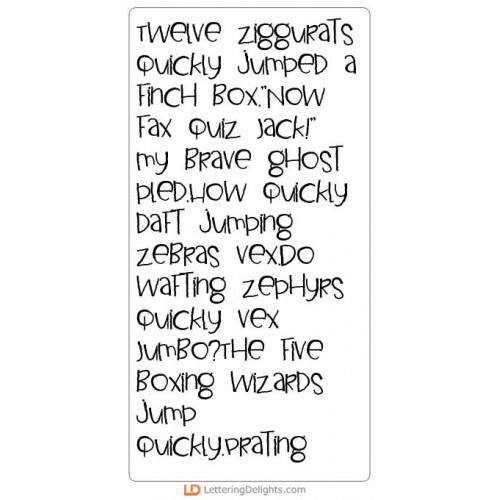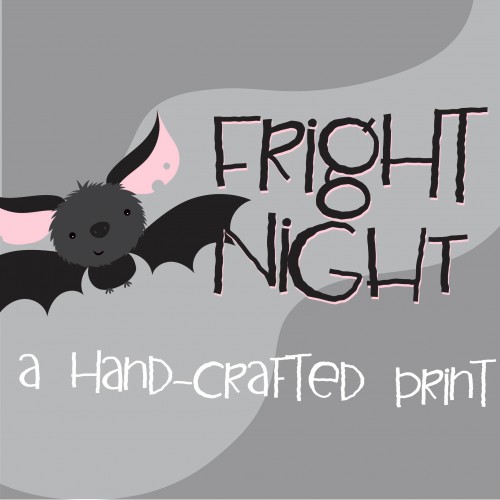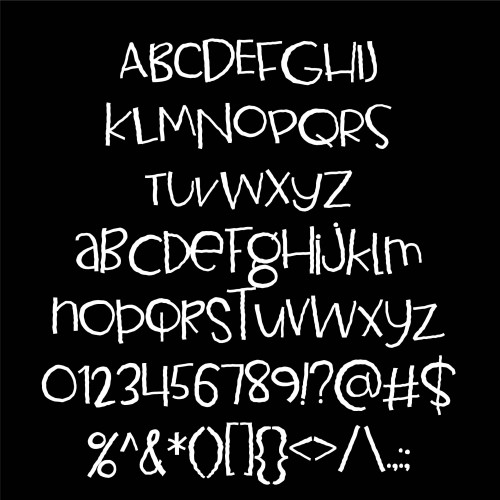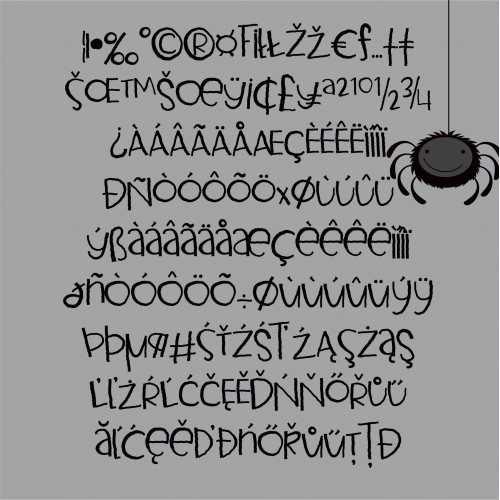
Friday the 13th Font Bundle
This scary font bundle is made up of 13 new scary fonts that are perfect for your Halloween projects.
PN Fright Night - FN
This youthful font is cute and just a bit scary...
ZP Wolfgang - FN
This is a great script that can add an aire of scary or formal to any project...
PN Millionaire Bachelor Bleeds - FN
This ornate and flourised serif font is dripping blood...
PN Shake in My Boots - FN
This scared serif font is shaking in it's boots...
LD Parry Hotter Haunted - FN
This all uppercase serif font has webs throughout...
LD Cottage Haunted - FN
This version of LD Cottage has extra pointy serifs to be more spooky...
PN Quigley Webs - FN
This version of LD Quigley has webs throughout...
LD Frightmares Too - FN
This version of LD Frightmares is extra flourished with scary points...
LD Scary Expanded - FN
This fun, haunted font is the wider version of LD Scary and a perfect Halloween font...
LD Count Fontula Black - FN
This formal, black letter font is hand-drawn and a better font for cutting on a machine than it's si..
ZP Sand and Sea Drool - FN
This formal and flourished font is dripping with drool...
ZP Tombstone - FN
This font has letters on each tombstone...